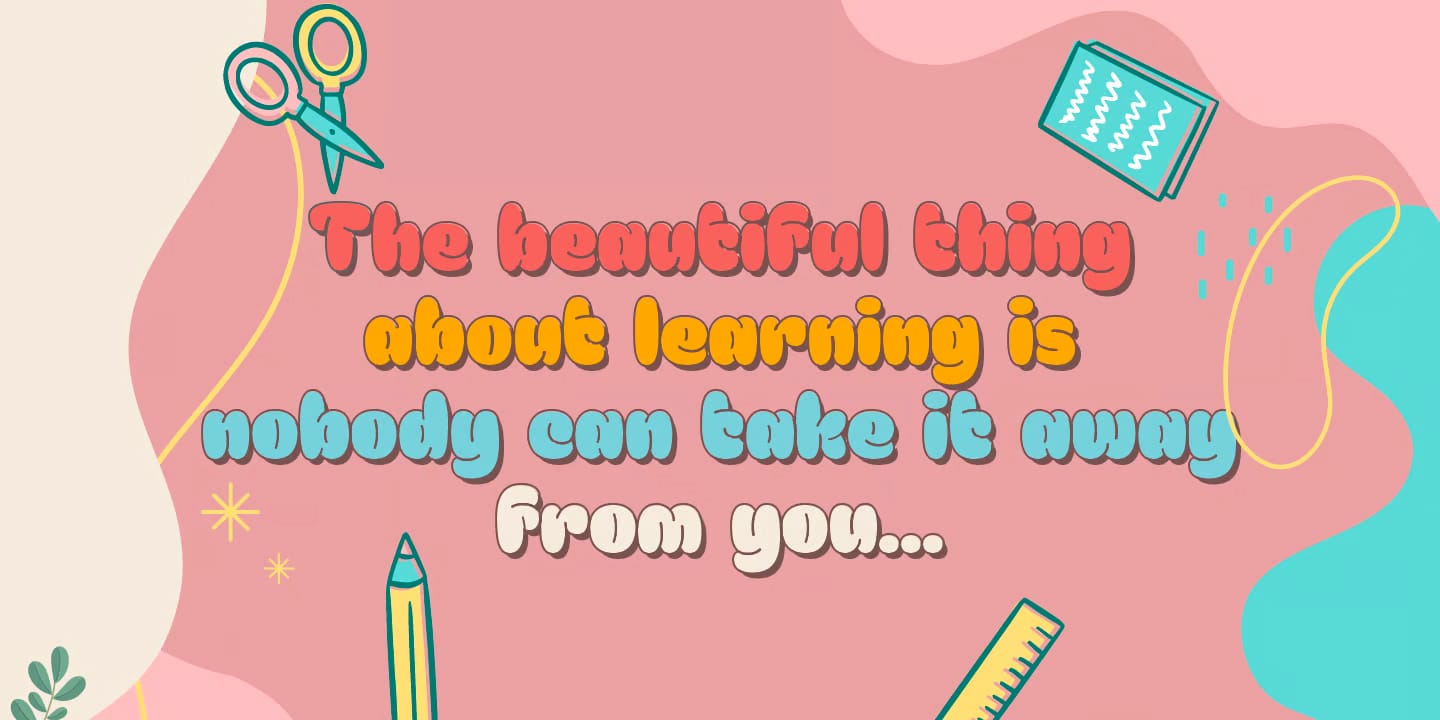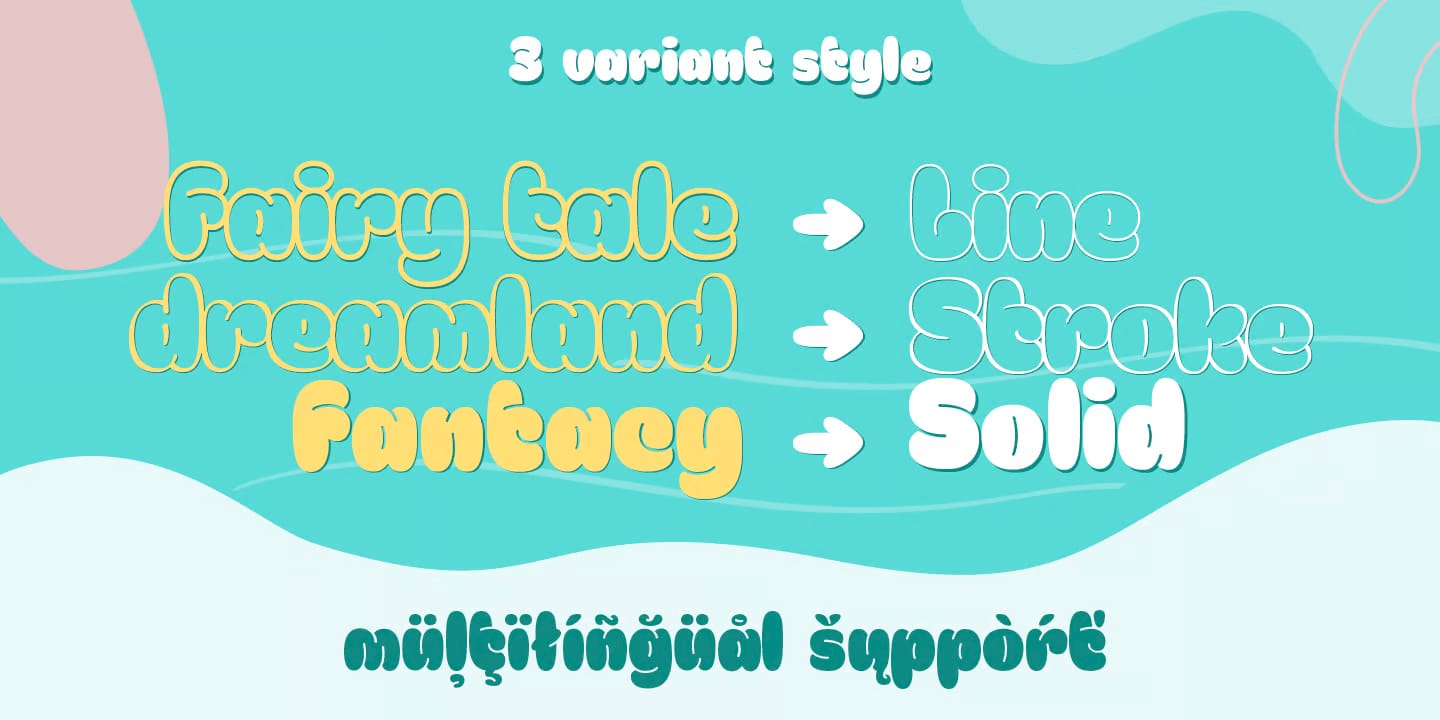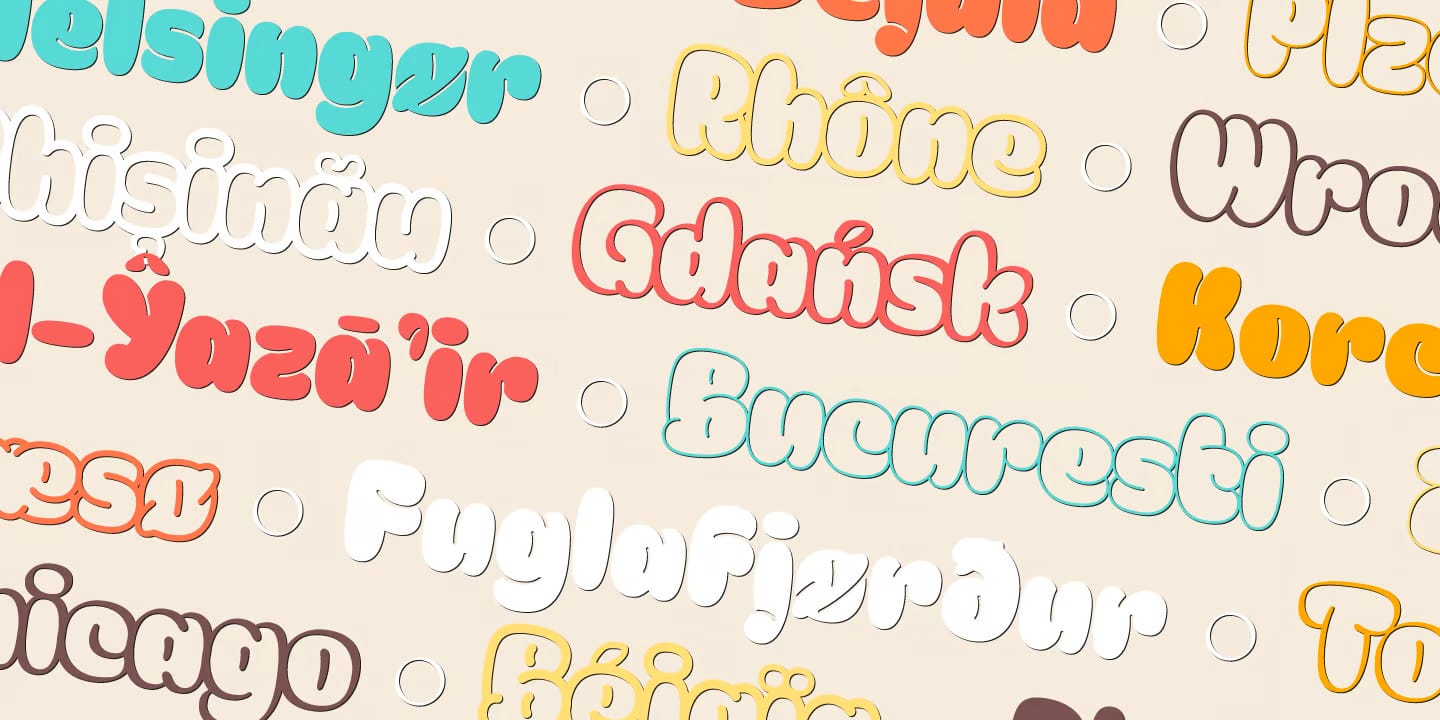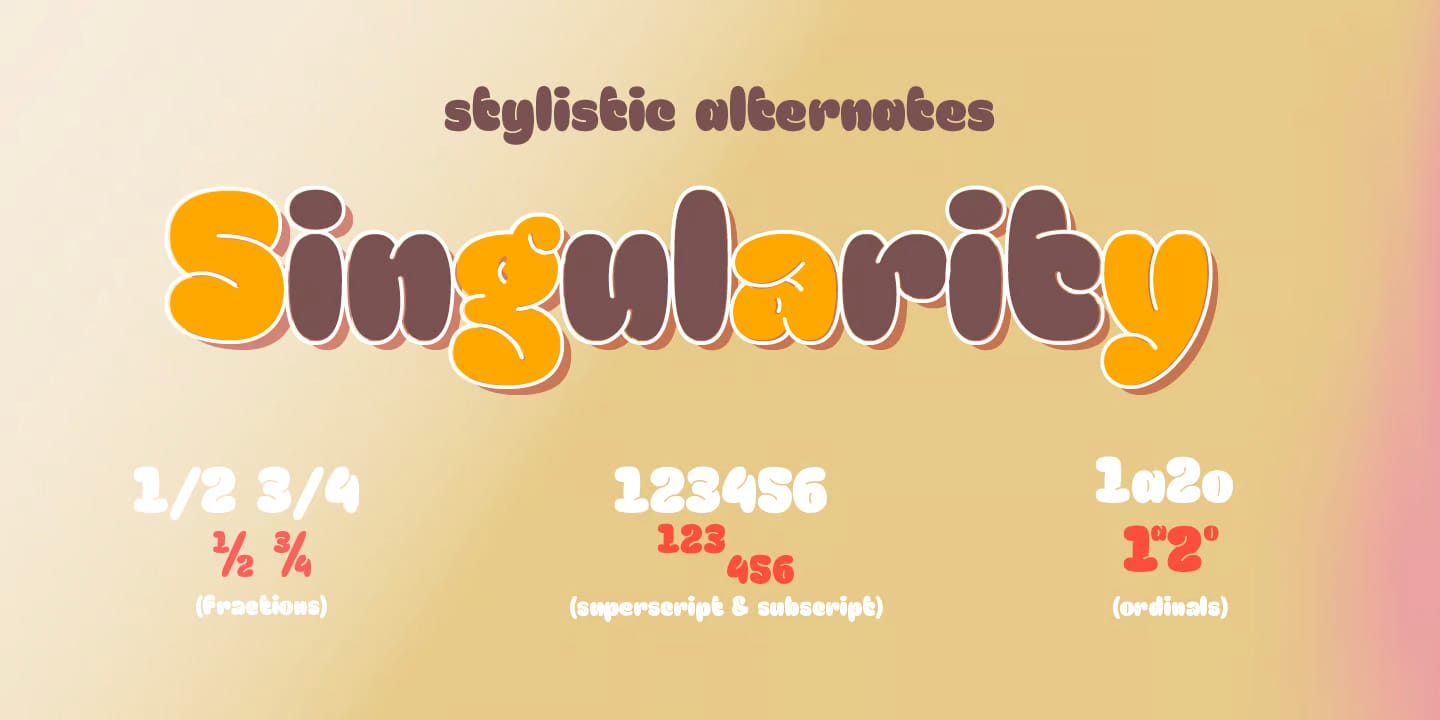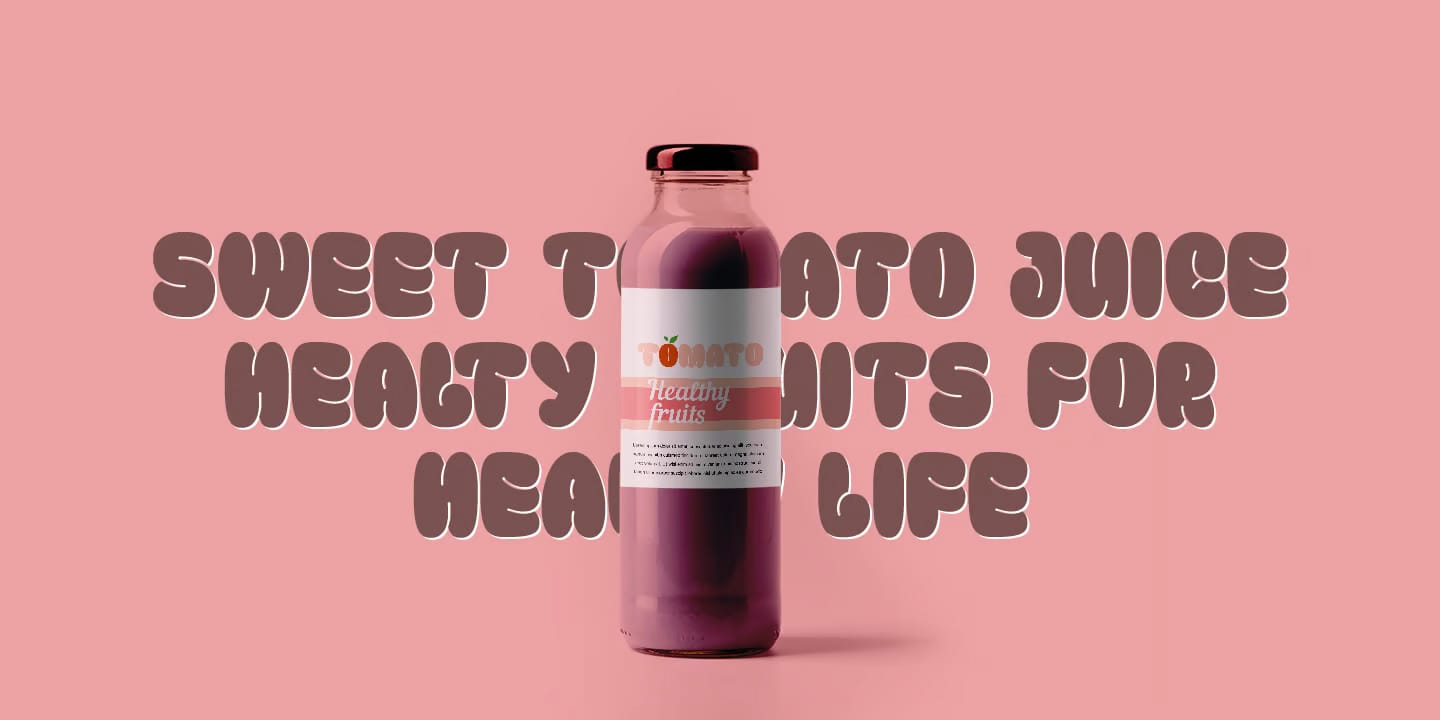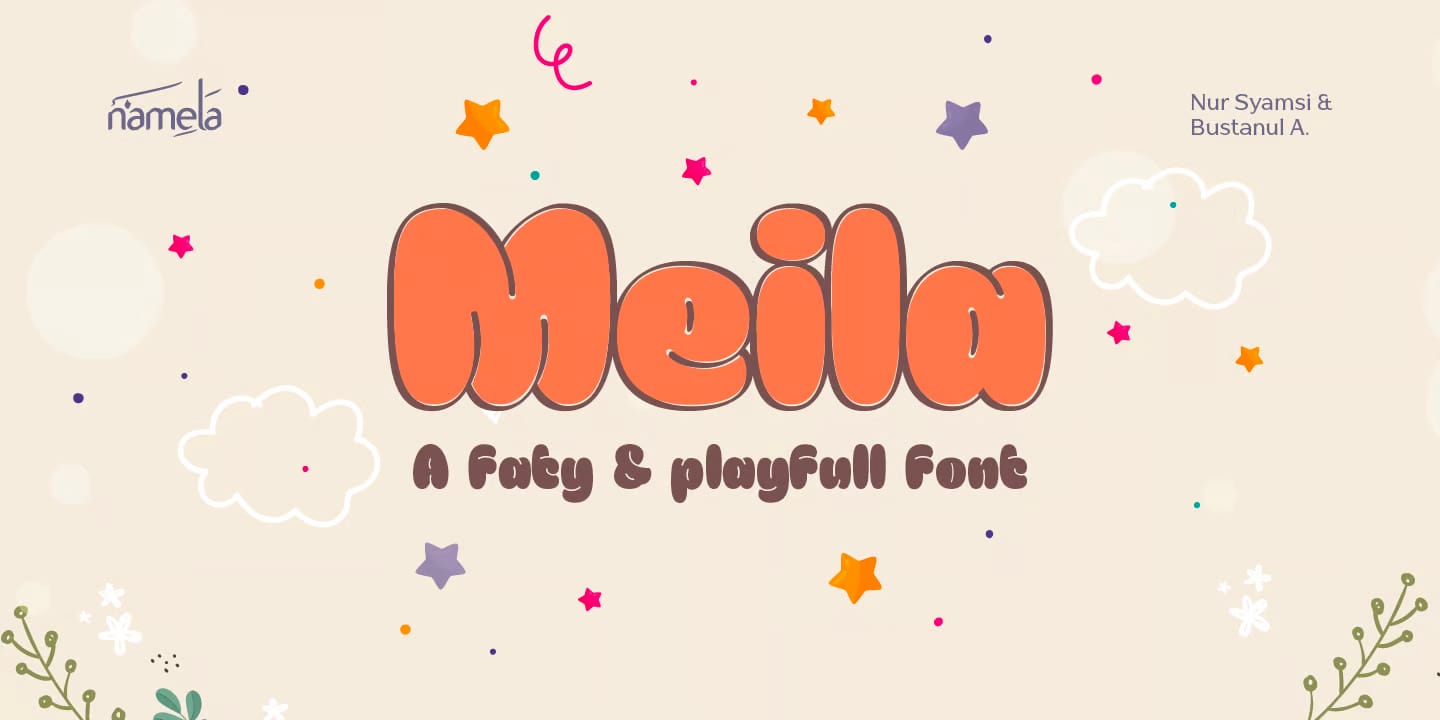
Meila Font Family features a playful, intuitive typeface featuring bold and cute characters.
Meila is designed with even lines on each side, especially on the outside, with almost no sharp corners but impressively rounded creating a perfect font and a bit of a fat look but still soft and looking just want to hug.
Meila includes 7 styles with several style variations and thickness variations, namely: Lines, Strokes and Solids.
Meila is great for children’s themed designs or other themes like: t-shirt designs, invitations, product packaging, logos, advertisements or any other design that needs a cute font. , chubby and impressive.